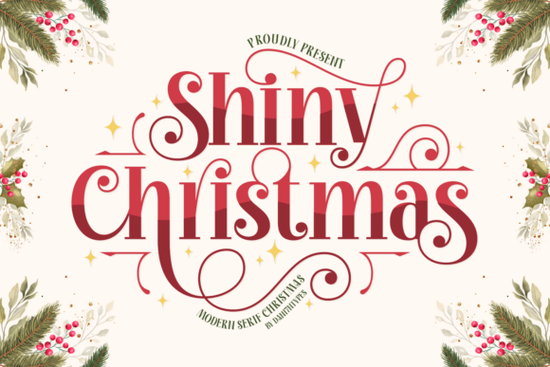
If you're looking for a festive font that brings warmth and sparkle to your holiday designs, Shiny Christmas Font is a great choice. It’s not just another Christmas typeface it’s a modern serif with thoughtful details that make your projects feel more joyful and polished. Whether you’re designing greeting cards, social media graphics, or packaging, this font adds a touch of magic without overwhelming the message.
What makes Shiny Christmas Font stand out?
Unlike basic holiday fonts, Shiny Christmas has elegant curves, decorative swashes, and subtle ornament details that feel intentional, not forced. The smooth contrast between thick and thin strokes gives it a refined look, perfect for both formal invitations and playful craft projects. You’ll notice how each letter flows naturally, especially when using the built-in ligatures they add a layer of sophistication that’s hard to achieve with generic fonts.
The design includes charming alternate characters, so you can mix and match styles within a single text line. For example, you might use a bold version of the “S” in one word and a delicate script version in another, all while keeping the overall look consistent. This flexibility helps you create unique visuals without needing advanced design skills.
Perfect for seasonal projects
This font works well across many uses. Try it on:
- Christmas cards – Add a personal, handmade feel to digital or print invites.
- Social media posts – Stand out during the holidays with eye-catching captions.
- Packaging and labels – Ideal for gift boxes, tote bags, or custom product wraps.
- Branding and logos – Use it for seasonal campaigns or limited-edition collections.
Because it’s a display font, it shines best at larger sizes. That means it’s not meant for long paragraphs, but for headlines, quotes, and short phrases where impact matters most.
How to get the most from Shiny Christmas Font
Start by pairing it with simpler, neutral fonts for balance. A clean sans-serif like Open Sans or Lato works well as supporting text. This combo keeps your design readable while letting the holiday font take center stage.
Also consider color. The font’s elegance pairs beautifully with deep reds, golds, and icy blues. Try a soft gradient background behind your text to enhance the “shiny” effect it mimics light reflecting off snow or ornaments.
Who should use Shiny Christmas Font?
It’s ideal for designers who want to create seasonal content quickly and professionally. Print-on-demand sellers can use it for holiday-themed merch like mugs, wall art, and stickers. Small businesses crafting seasonal branding will find it useful for emails, flyers, and website banners. Crafters working on handmade cards or scrapbooks will appreciate its festive yet elegant tone.
Even hobbyists who enjoy digital decorating during the holidays will love how easy it is to add a festive touch to their projects.
Remember: the best holiday designs don’t rely on clutter. A single, well-chosen font like Shiny Christmas can carry the whole mood of the season.
- Use alternates and ligatures to add variety and personality.